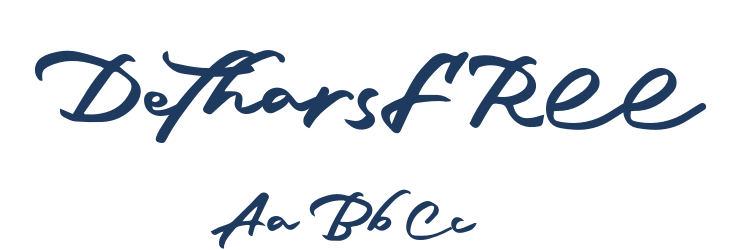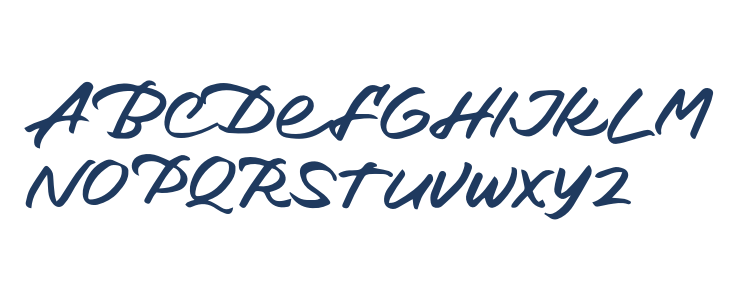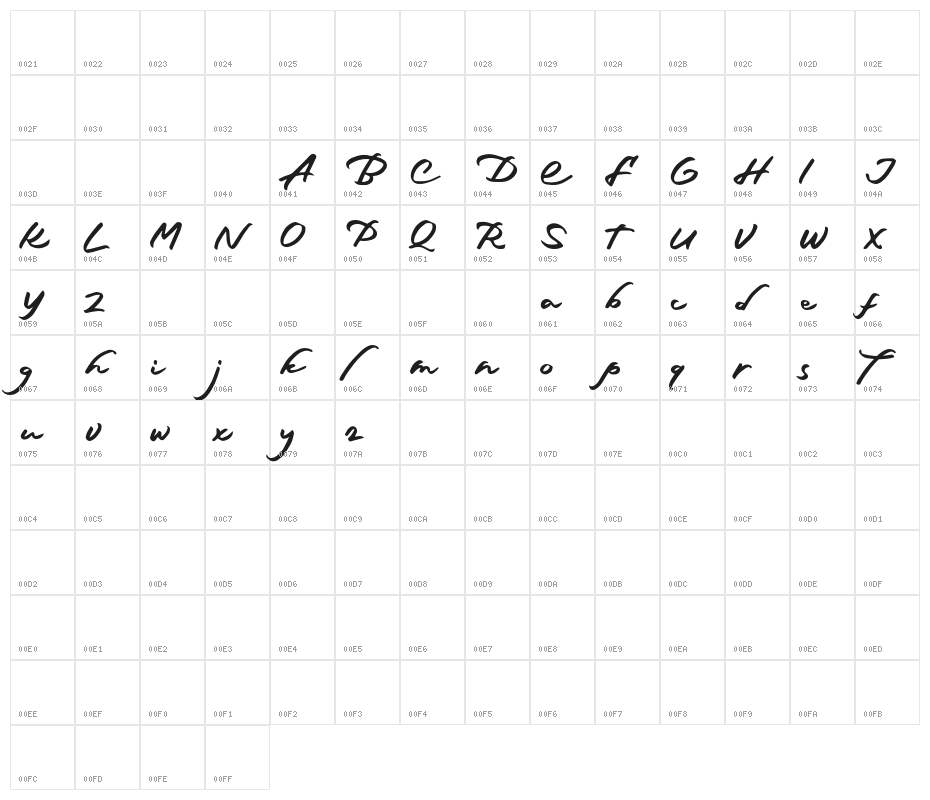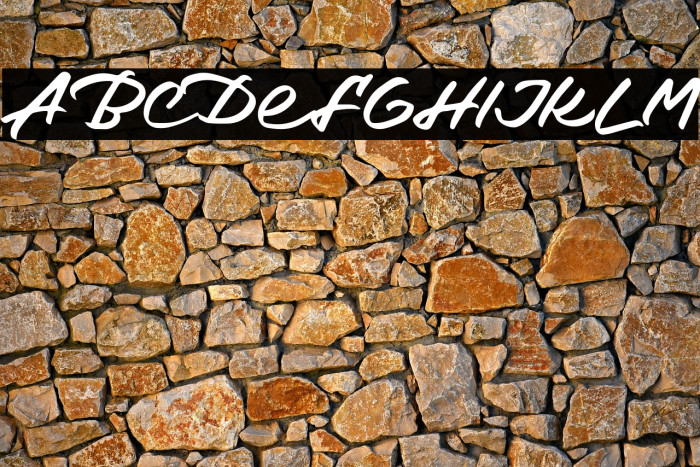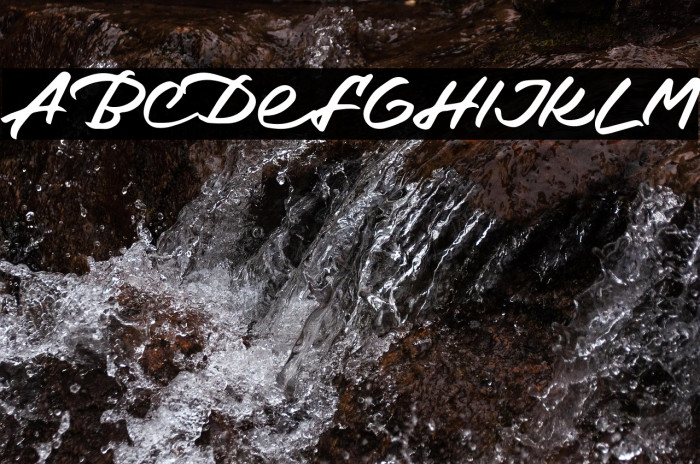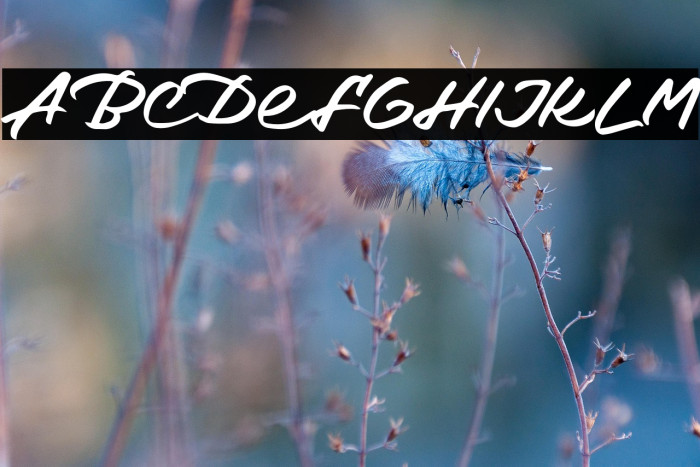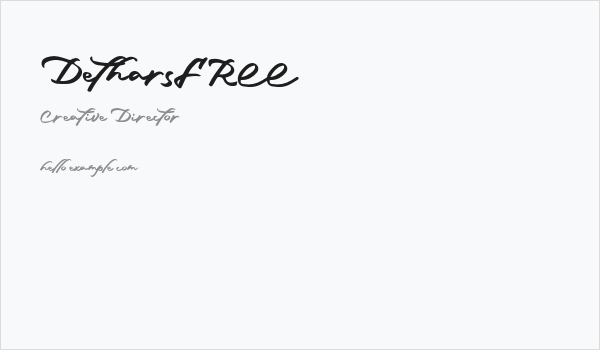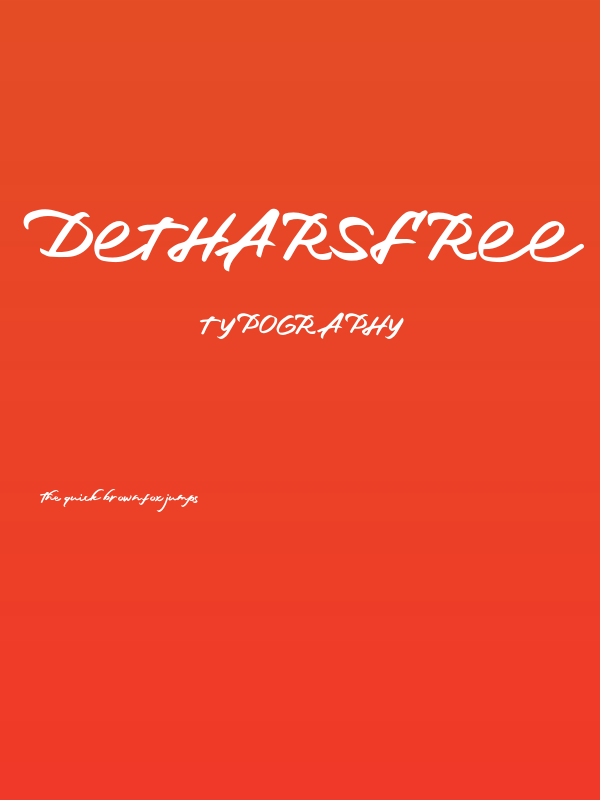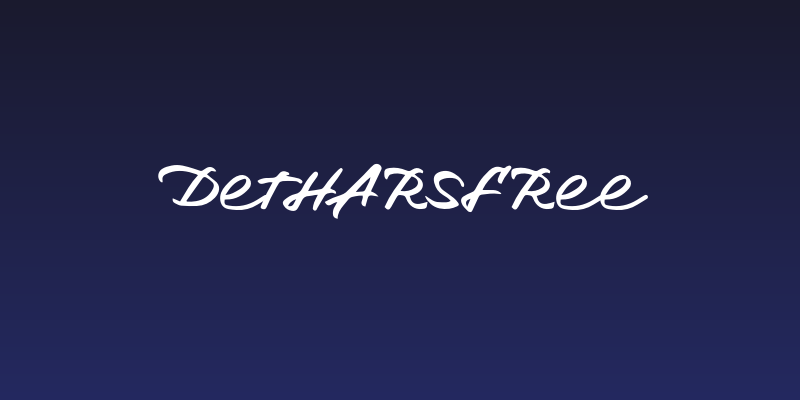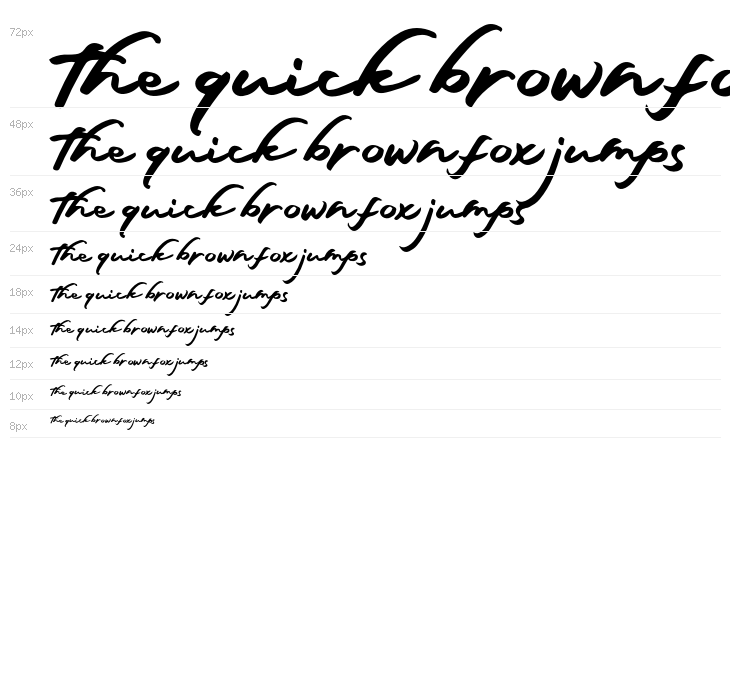
DetharsFREE Font
DetharsFREE Description
A casual, handwritten script font with smooth, flowing strokes and a slightly slanted angle, mimicking natural handwriting with a brush or pen.
| Overall Style | Casual, informal, friendly |
| Use Case | Invitations, personal notes, logos, social media posts |
| Proposed Projects | Personal branding, invitations, greeting cards, informal logos, social media graphics. |